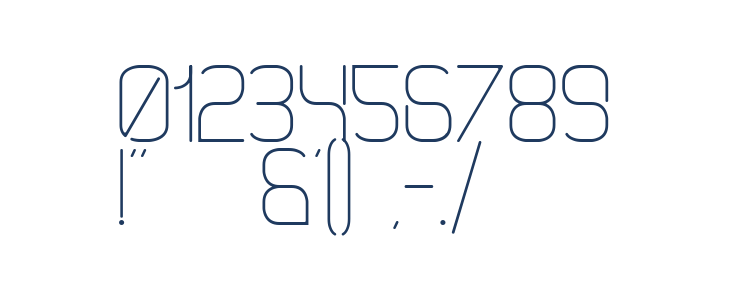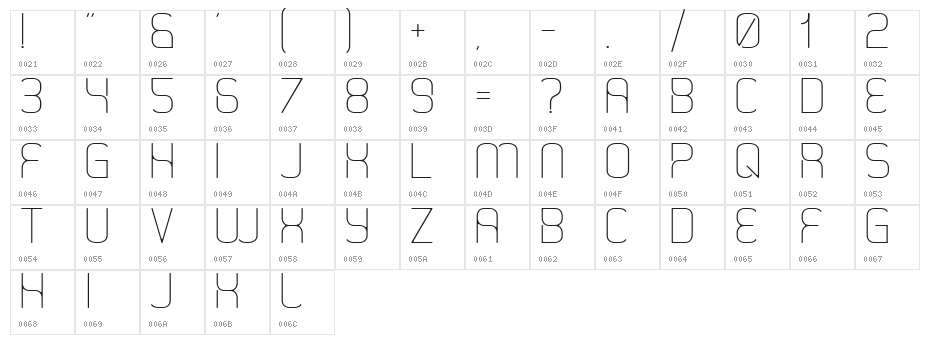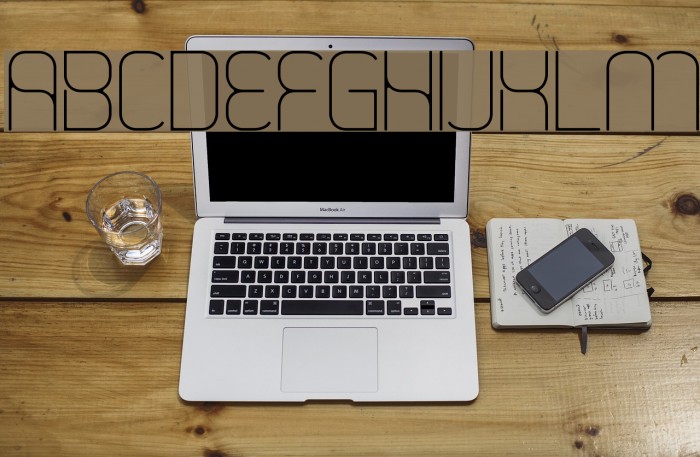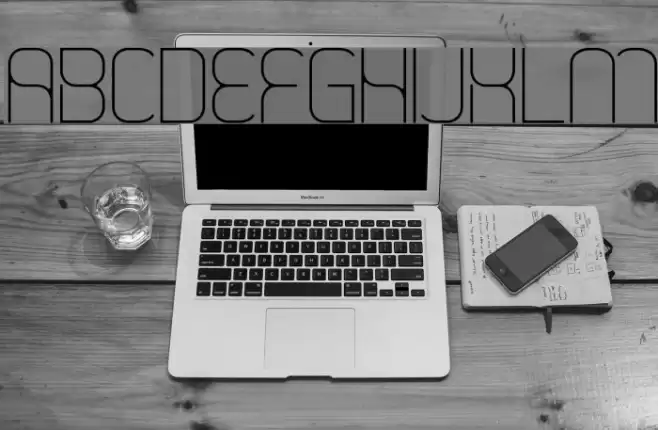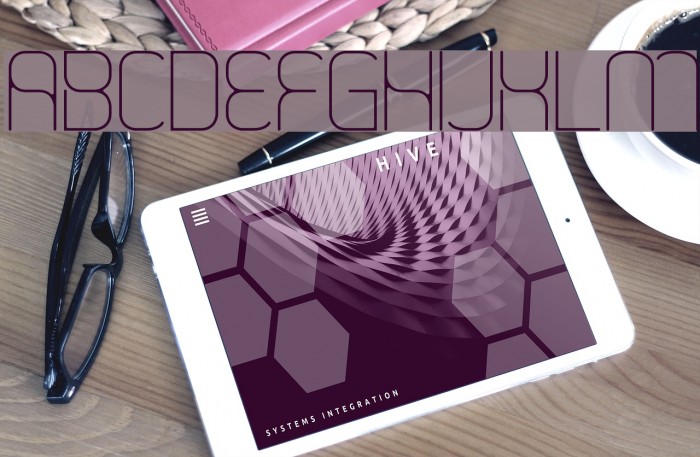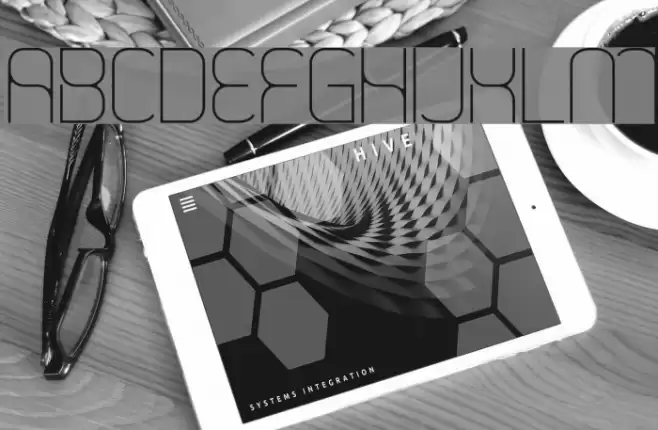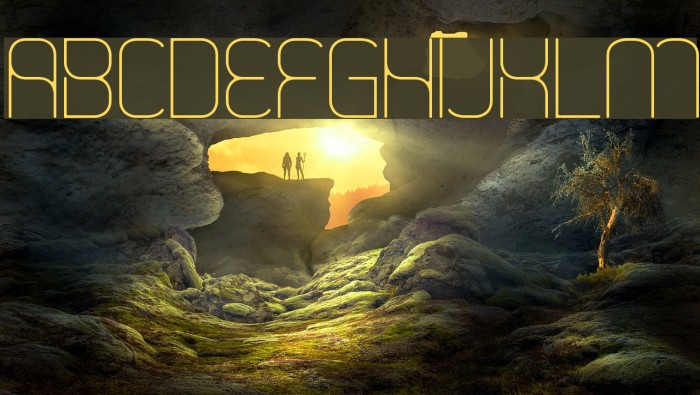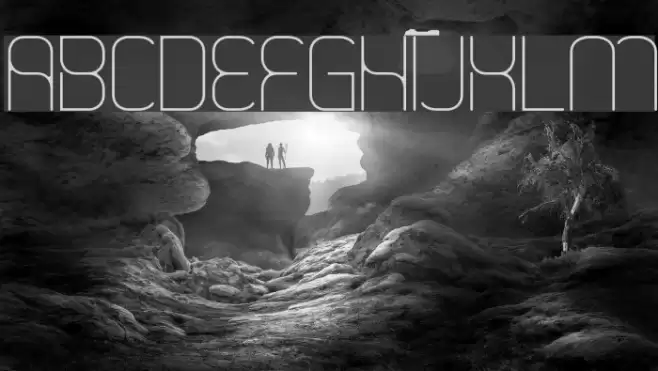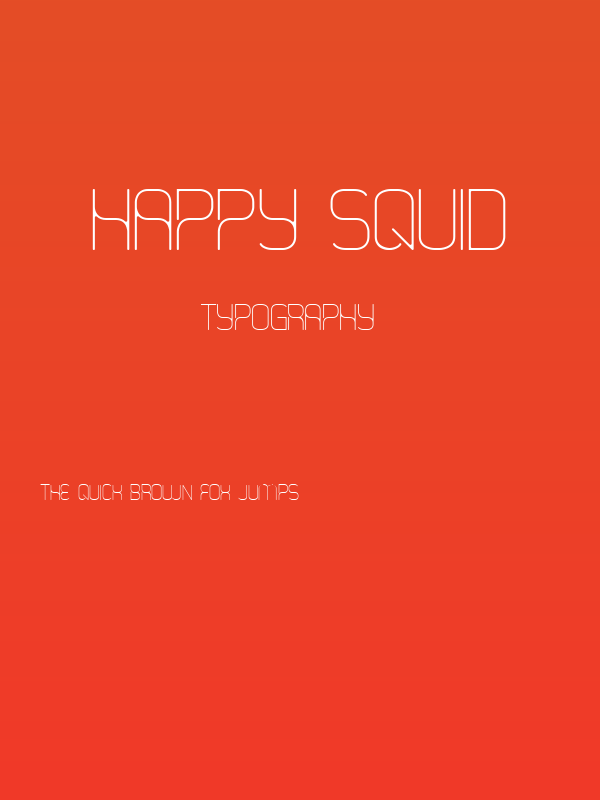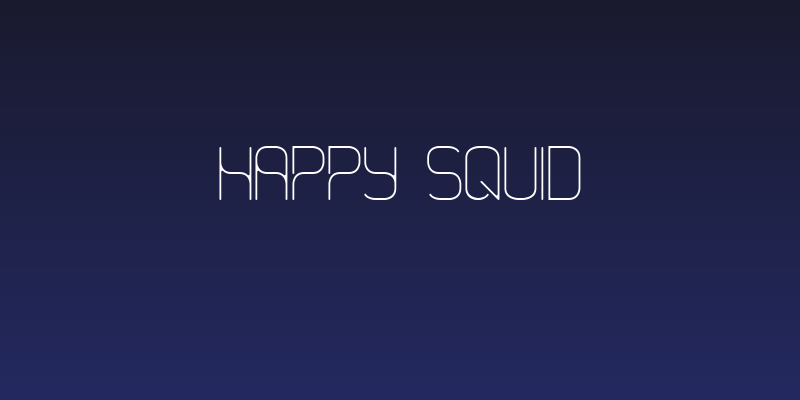
happy squid Font
happy squid Description
This font features a sleek, modern design with a geometric and minimalistic approach. The characters are constructed with clean, straight lines and rounded corners, giving it a futuristic and streamlined appearance. The uppercase and lowercase letters maintain a consistent height, contributing to a uniform and balanced look. The numerals and special characters follow the same design principles, ensuring cohesion across all elements. Its simplicity and elegance make it suitable for contemporary design projects, where clarity and style are paramount.
| Proposed Projects | Ideal for branding, tech-related projects, modern advertising, and digital interfaces. |